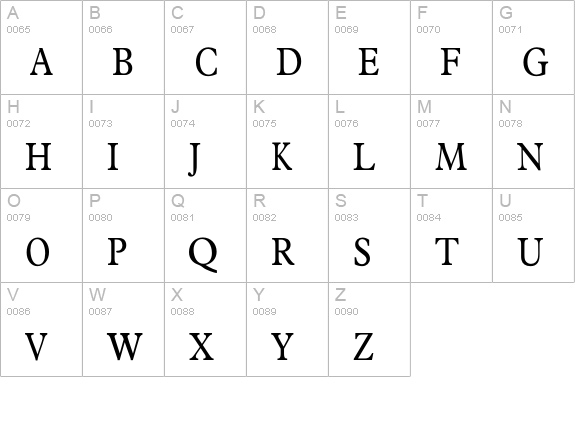
TRGPlantin Font Details
TRGPlantin font is a stunning typeface that combines elegance, sophistication, and a touch of vintage charm. With its meticulously crafted design and attention to detail, this font is perfect for adding a touch of class to any project. The classic serifs and graceful curves of TRGPlantin font give it a timeless appeal that can elevate any design, whether it's a logo, a title, or a piece of typography. Its versatility allows it to seamlessly blend into various themes and styles, making it a favorite among designers and creatives. But what sets TRGPlantin font apart is not just its exquisite aesthetic appeal. It is also a font that is freely available for download at FontsMarket.com. Yes, that's right, you can access this exceptional typeface completely free of charge, making it accessible to designers of all levels. Whether you're a professional designer or just starting out, TRGPlantin font offers a world of creative possibilities at your fingertips. Its wide range of weights and styles allows you to experiment and find the perfect fit for your project. From bold and impactful to delicate and refined, this font has it all. So why wait? Visit FontsMarket.com today and download TRGPlantin font for free. Unleash your creativity and add a touch of elegance to your designs with this remarkable typeface.